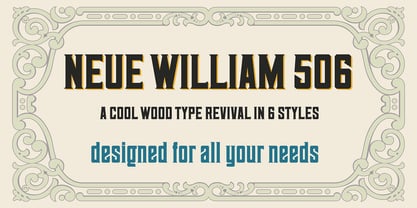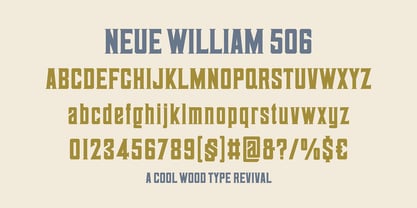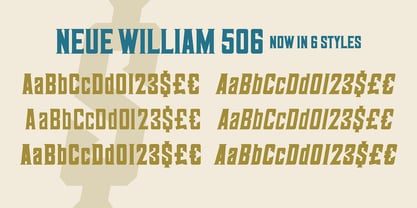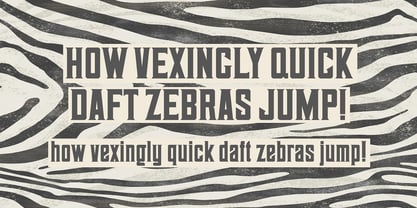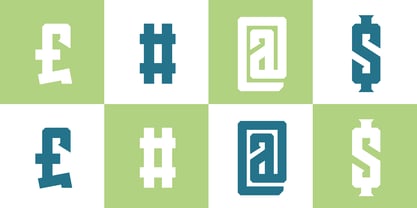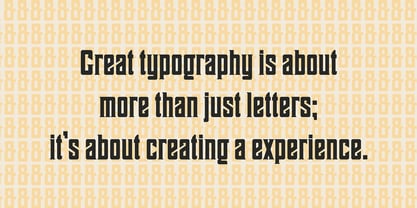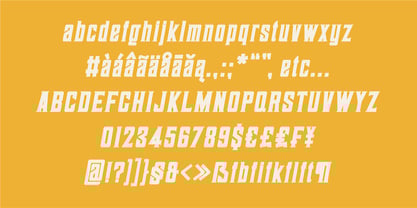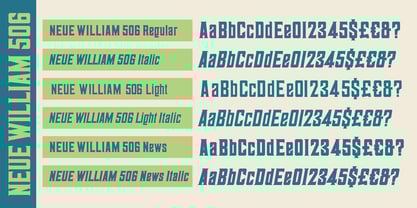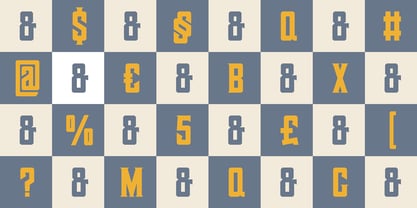
Neue William 506
von Kustomtype
Die Schriftfamilie Neue William 506 wurde von Coert De Decker entworfen und von Kustomtype veröffentlicht. Neue William 506 enthält 6 Stile und Familienpaketoptionen.
Unleash your creativity with Neue William 506, a stunning typeface designed by Coert De Decker of Kustomtype. This font is a tribute to William Hamilton Page and his significant contributions to typography, originally inspired by the wood type featured in the 1890 Page’s New Process Wood Type Album.
Offering six versatile weights, Neue William 506 is perfect for all graphic projects, from eye-catching advertising campaigns to unique logos and stylish t-shirt designs. Its elegant design empowers you to experiment and elevate your work.
Designer: Coert De Decker
Herausgeber: Kustomtype
Foundry: Kustomtype